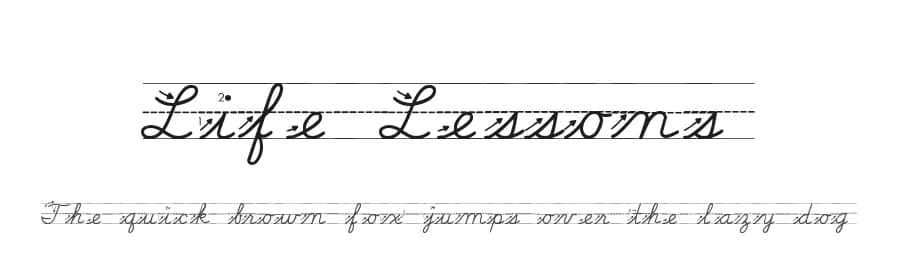
About Life Lessons Font
Life Lessons is a script & handwritten font designed by Tioem. It includes 77 glyphs, a regular weight, TTF (TrueType) format, and 104 languages. Life Lessons is free to download; check the license details on this page before commercial use. Script & handwritten fonts like Life Lessons work best for wedding invitations, greeting cards, signatures, and elegant branding.
Life Lessons Font is a script font that shines as a display or heading face. Pair it with a clean sans-serif or serif font for body text β the contrast creates a clear hierarchy while the two styles stay balanced and easy to read.
Life Lessons Font
by Tioem
Life Lessons Font is a script handwritten typeface by Tioem, ideal for logos, invitations, branding, and creative projects.